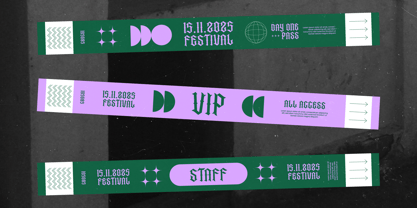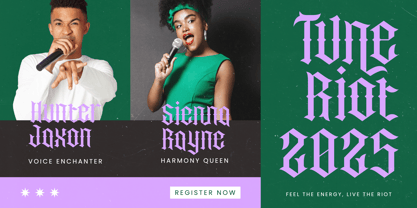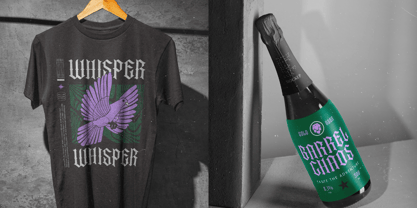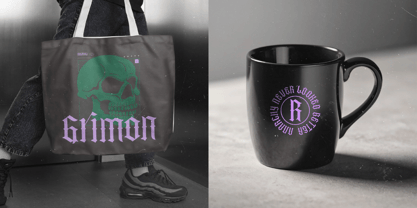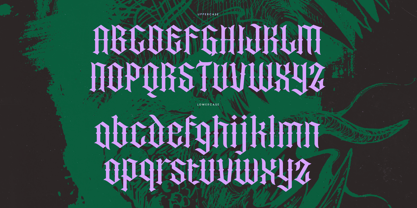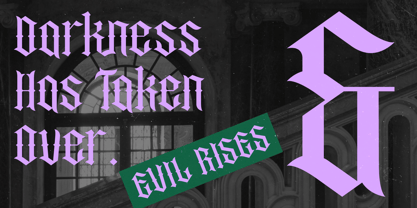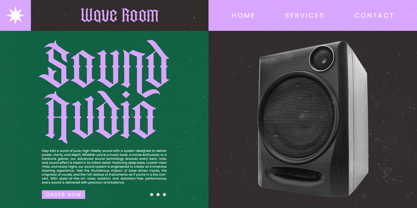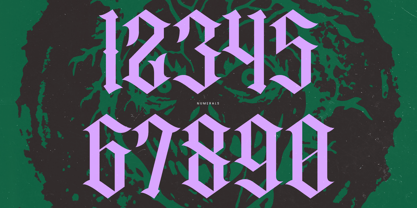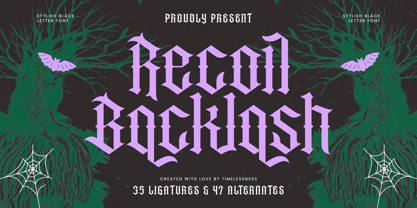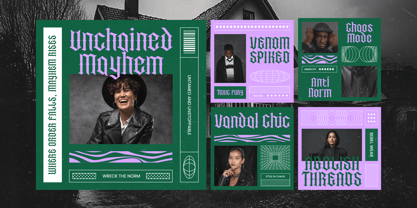
Recoil Backlash
The Recoil Backlash Font Family was designed by Heru Utama Putra and published by Timelesstype Studio. Recoil Backlash contains 2 styles and family package options.
Recoil Backlash - Stylish Blacklatter Font , from Timelesstype, Suitable for any projects such as: logos, branding projects, homeware designs, product packaging, mugs, quotes, posters, shopping bags, t-shirts, book covers, name card, invitation cards, greeting cards, label, photography, watermark, special events, and all your other luxury and beautiful projects that need a Luxury Serif taste.